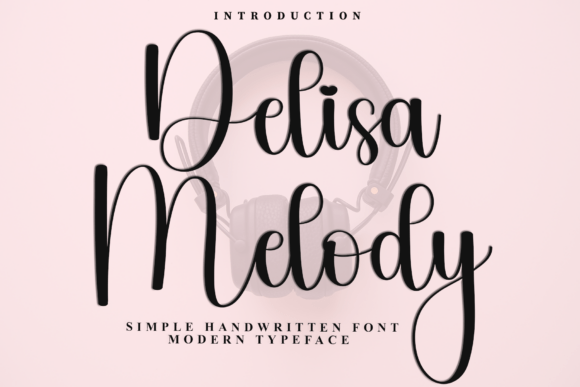
The Magic of the Holiday Season: Unleashing the Delisa Melody Font
As I sat at my desk, surrounded by twinkling lights and the warm glow of the Christmas tree, I stumbled upon the perfect font to capture the essence of the holiday season: Delisa Melody. With its playful, whimsical flair, this font transports me to a world of festive wonder and joy.
Delisa Melody Font is more than just a typeface – it’s an invitation to add a touch of magic to your designs. Perfect for greeting cards, gift tags, and holiday-themed projects, this font brings a cheerful and nostalgic ambiance to your words. Whether you’re a seasoned designer or a DIY enthusiast, Delisa Melody Font is a valuable addition to your toolkit, offering a world of creative possibilities and a dash of holiday cheer.
Delisa Melody Font Key Features
- Font Family: Delisa Melody, a beautiful and elegant script font.
- Character Count: The font contains over 600 characters, including uppercase and lowercase letters, numbers, and punctuation marks.
- Unique Characteristics: Delisa Melody features a unique, handwritten style with a mix of cursive and calligraphic elements, making it perfect for creative and artistic designs.
Delisa Melody Font Review
I’ve had the chance to work with the Delisa Melody Font, and I must say it’s a unique addition to any design project. ✨ Here are some things that work well:
- Handwritten touch: The Delisa Melody Font has a beautiful, handwritten feel to it, perfect for adding a personal touch to your designs.
- Legibility: The font is highly legible, making it great for body text and titles.
- Customization: The font offers a wide range of customization options, from font sizes to line heights.
However, like any font, Delisa Melody has its limitations. ⚠️ Here are a few things to keep in mind:
- Limited scalability: While the font is legible at most sizes, it may not be the best choice for very large or very small text.
- No bold or italic variants: The font only comes in a single weight, which may limit its use in certain contexts.
Overall, I think the Delisa Melody Font is a great choice for designers who want to add a touch of personality to their projects. While it may not be the most versatile font, its unique handwritten feel and high legibility make it a great option for a wide range of applications.
Tips for Getting the Most Out of Delisa Melody Font
For a more polished look, pair Delisa Melody Font with other elegant fonts.
To add a personal touch, customize the font color and size to match your brand’s identity.
Delisa Melody Font is perfect for:
Stationery and greeting cards
Project 1: Whimsical Journal Cover
Create a unique journal cover using the Delisa Melody Font to add a touch of whimsy and elegance. This project is perfect for book lovers and artists.